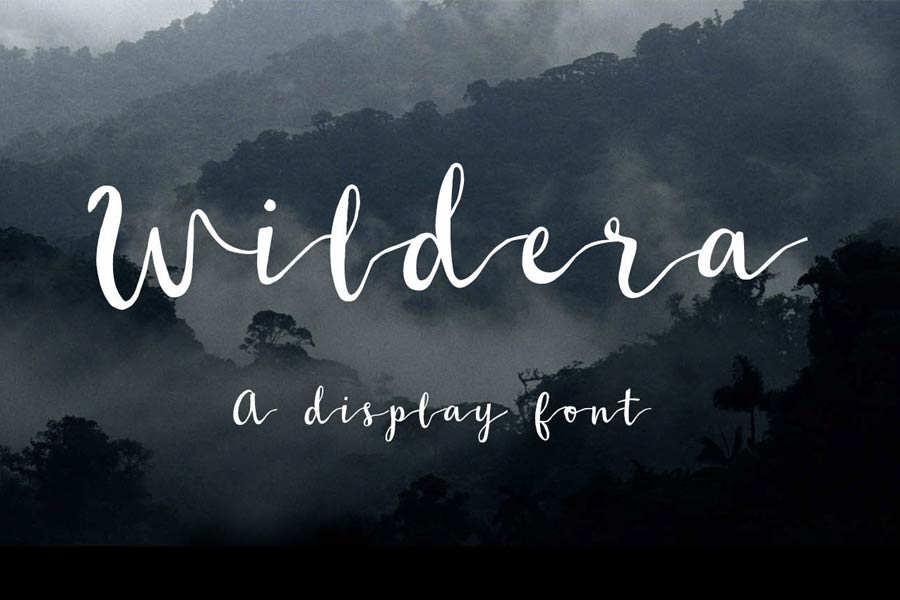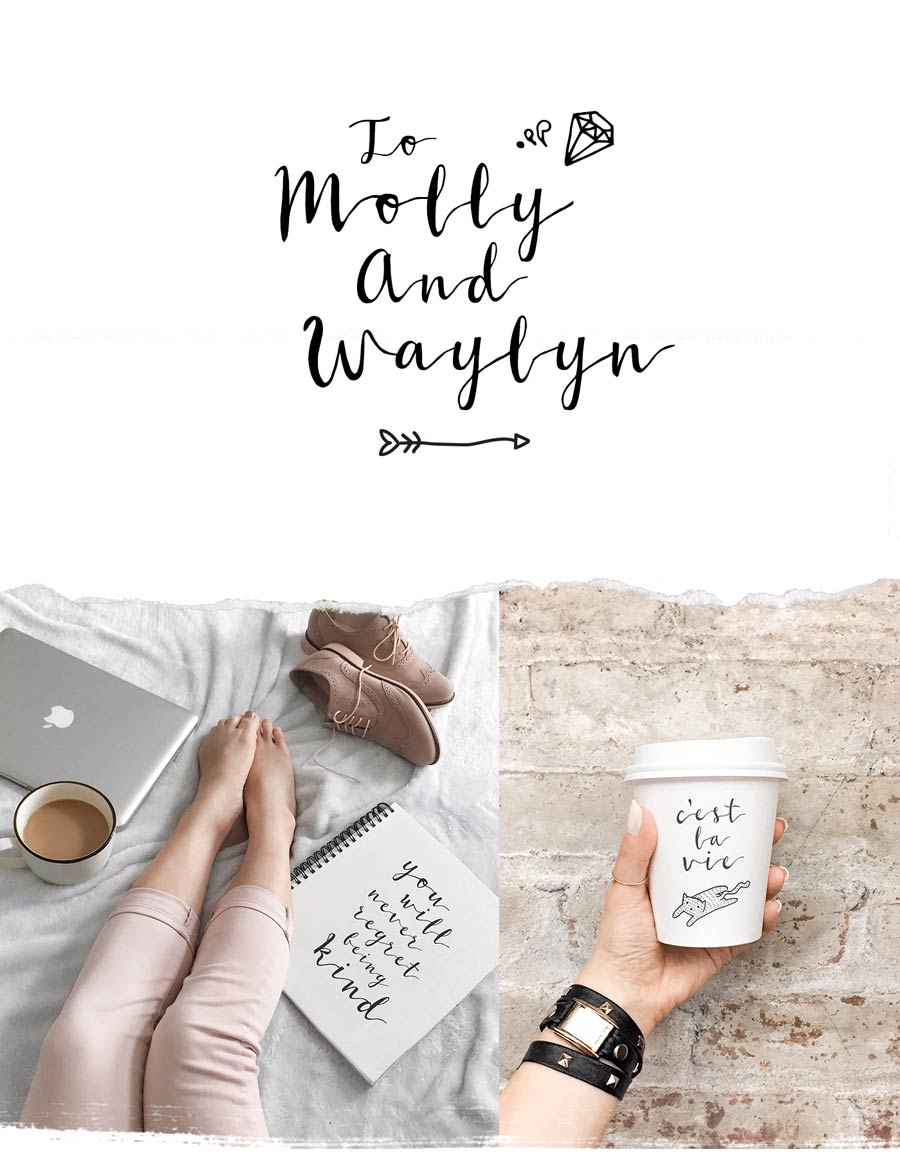
Wildera is a free calligraphy font by illustrator Lauren Lee, based off her calligraphy project on Instagram. According to Lauren, after countless of reworking, Wildera font was born including connected characters, playful up-and-downs, and uneven edges.